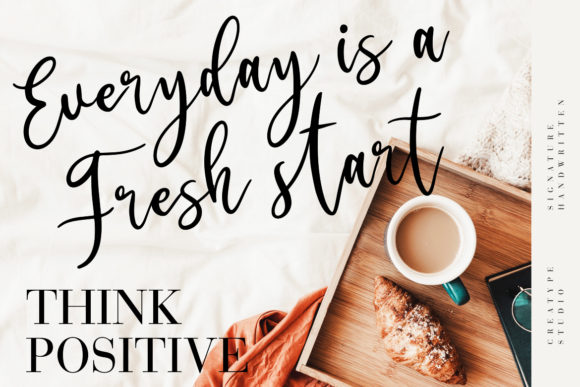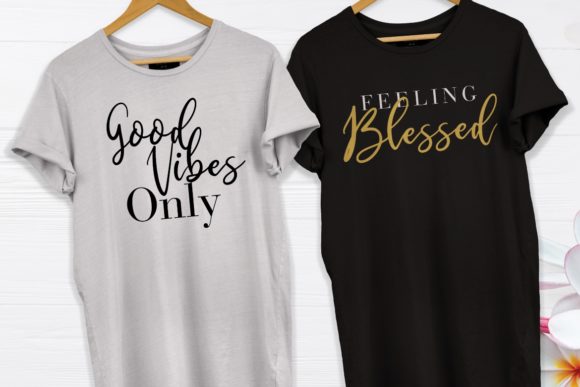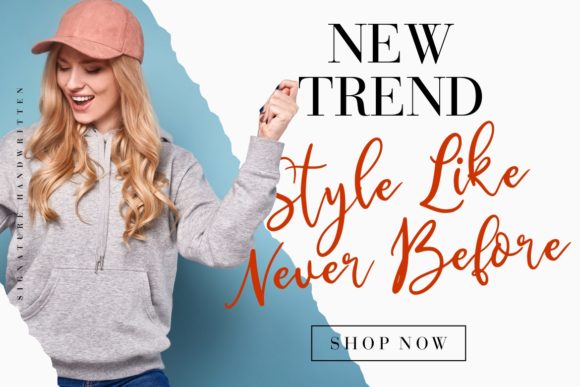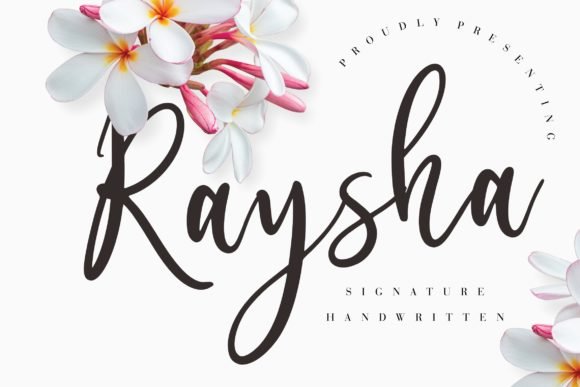
Introduction to Raysha Font
Raysha is a timeless and elegant handwritten font.
It looks lovely on wedding invitations, thank you cards, quotes, greeting cards, logos, business cards and every other design which needs a handwritten touch .